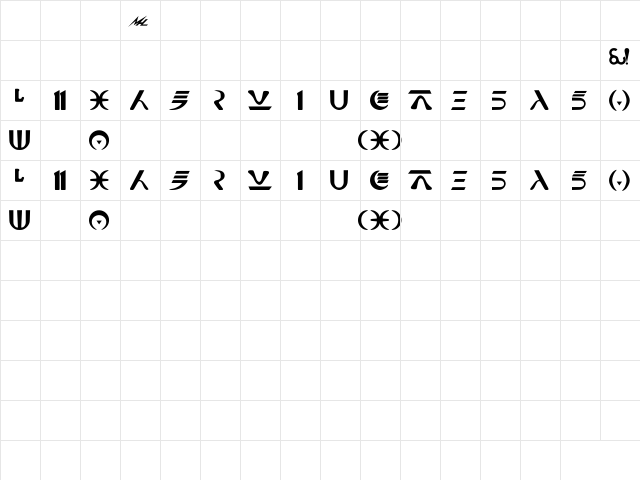
Naboo_Futhork Bold
Design Context for Naboo_Futhork Typeface
Naboo_Futhork offers clean, dependable letterforms without strong stylistic allegiance, making it a practical choice for designers who need flexibility. Its bold stroke weight gives it real presence on the page.